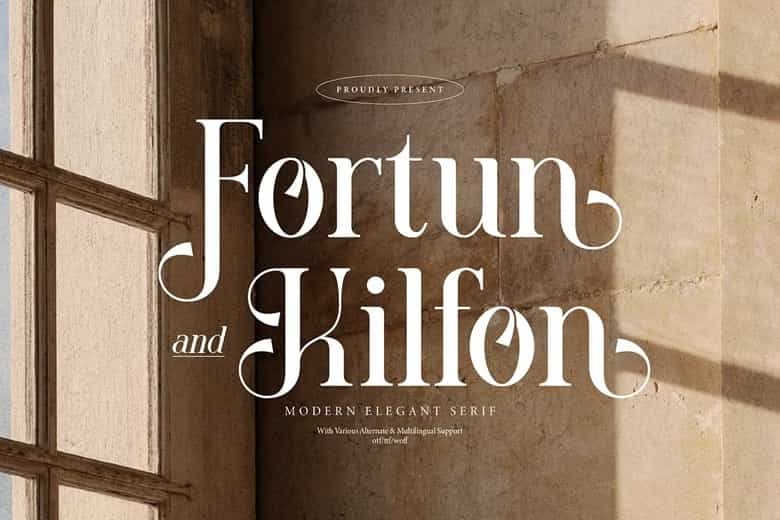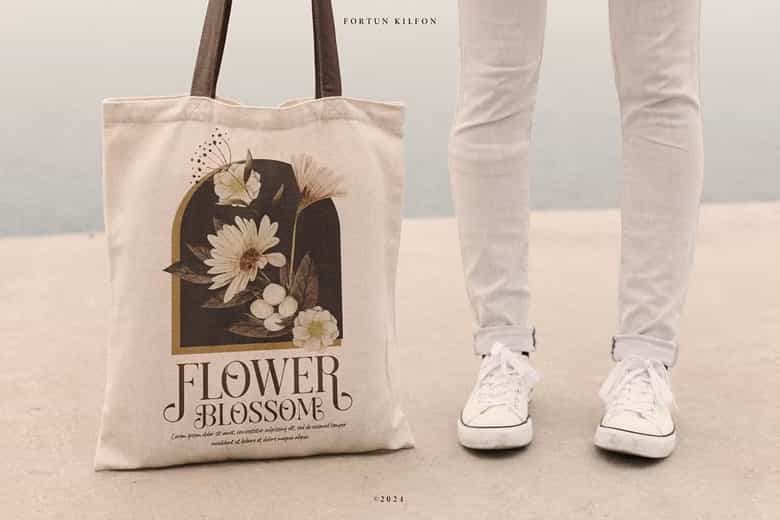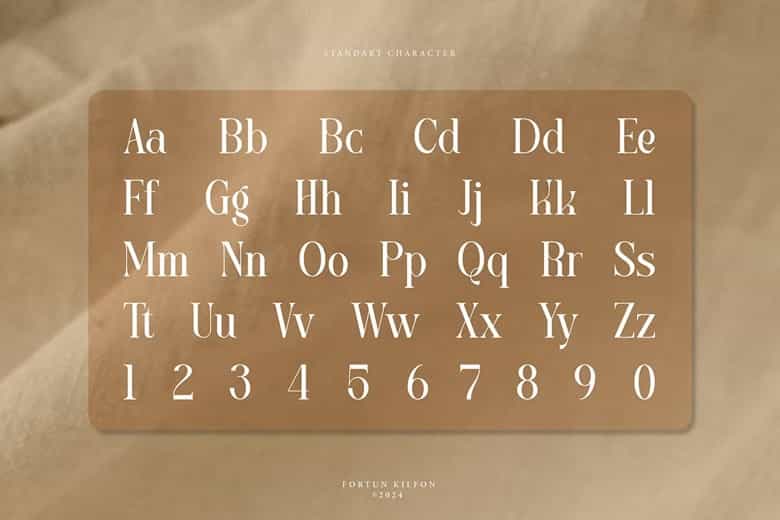
Fortun Kilfon is a new modern serif typeface. It is suitable for any projects such as: logos, branding projects, homeware designs, product packaging, quotes, posters, shopping bags, t-shirts, book covers, name card, invitation cards, greeting cards, label, special events, and all your other lovely projects.